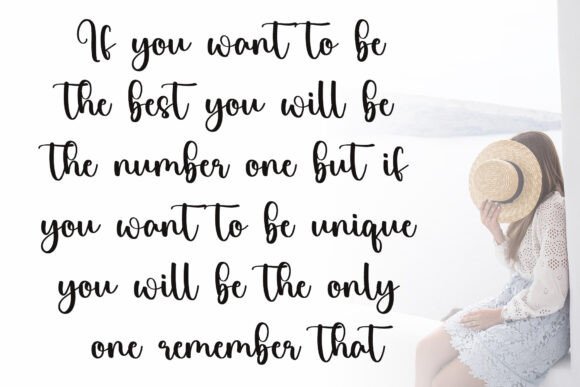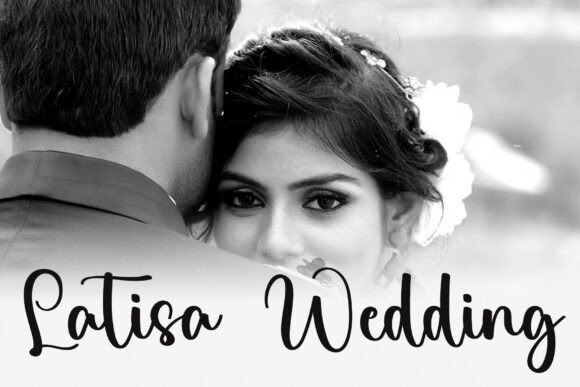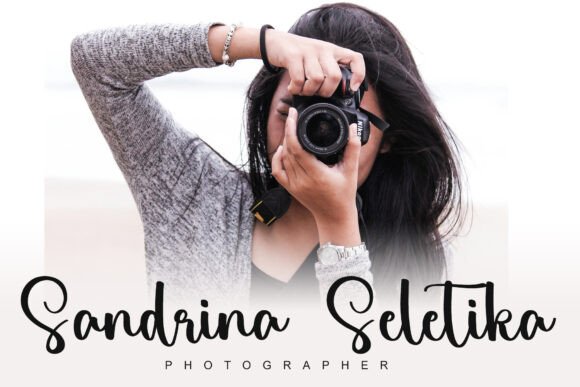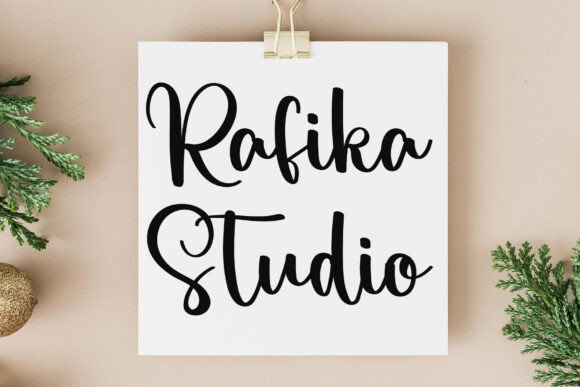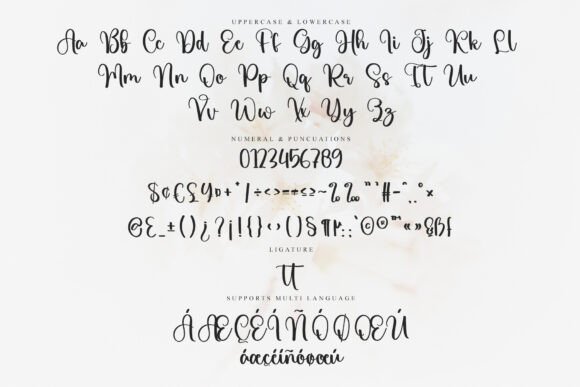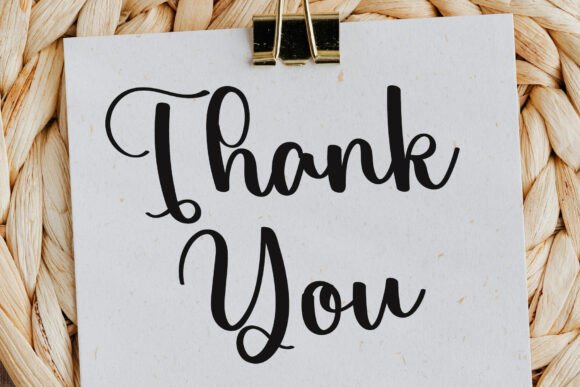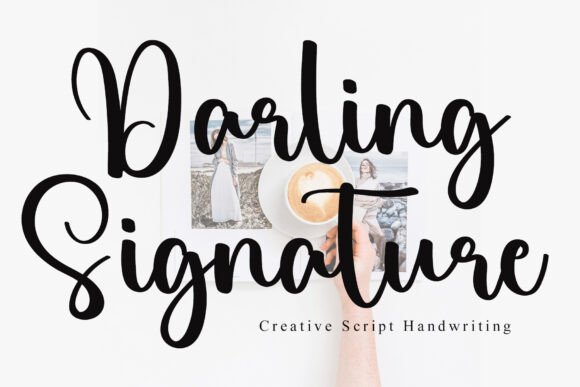
Introducing Darling Signature Font: Elevate Your Designs with Elegance
In the world of design, typography plays a crucial role in conveying the tone and aesthetic of a project. For those seeking to add a touch of sophistication and whimsy to their creations, the Darling Signature Font is an exceptional choice. This magical handwritten font is carefully crafted to bring an air of elegance to various designs, making it perfect for a wide range of applications, from social media graphics to DIY projects.
The Charm of Darling Signature Font
Darling Signature Font is a beautiful, handwritten script that exudes charm and personality. Its unique, flowing letters are designed to capture the essence of calligraphy, providing a personal and intimate feel to any design. Whether you’re working on a logo, a social media post, or a craft project, this font adds a distinctive touch that sets your work apart.
One of the standout features of Darling Signature Font is its versatility. It’s incredibly adaptable, making it suitable for various design needs. Here are a few ways you can use this enchanting font:
- Instagram Graphics: Elevate your Instagram feed with stylish and cohesive graphics. Darling Signature Font is perfect for creating engaging captions, quotes, or announcements that stand out.
- DIY Projects: For crafters and DIY enthusiasts, this font can add a personal touch to handmade cards, journals, and other craft projects. Its calligraphy style brings a sense of warmth and authenticity.
- Branding and Logos: Businesses looking for a unique and elegant logo will find Darling Signature Font to be an excellent choice. It can help create a memorable brand identity that resonates with elegance and sophistication.
- Stationery and Invitations: Create beautiful stationery, invitations, or thank you cards with a personal touch. The font’s elegant style ensures your correspondence stands out.
Why Choose Darling Signature Font?
There are several reasons why designers and crafters should consider Darling Signature Font for their projects:
- Elegance and Sophistication: The font’s design offers an elegant look that can elevate the aesthetic of any project.
- User-Friendly: Darling Signature Font is easy to use, even for those who are new to design or crafting. Its clear and flowing script makes it simple to work with.
- Unique and Personal: In a world of generic fonts, Darling Signature offers a unique and personal touch that can make your designs stand out.
- Magical and Whimsical: The font adds a magical and whimsical touch to designs, making them more engaging and captivating.
Transforming Creative Ideas into Art
Darling Signature Font is more than just a typeface; it’s a tool for transforming your creative ideas into true pieces of art. Its ability to bring a touch of elegance and whimsy to designs makes it an invaluable resource for designers and crafters alike. Whether you’re looking to create something beautiful for personal use or professional projects, this font provides the perfect foundation.
Darling Signature Font is a magical handwritten font that brings a touch of elegance and whimsy to designs. Its versatility, charm, and ease of use make it an excellent choice for designers and crafters looking to elevate their projects. Whether you’re creating graphics for Instagram, working on DIY projects, or developing branding materials, Darling Signature Font is sure to turn your creative ideas into stunning pieces of art. Embrace the elegance and make your designs truly special with Darling Signature Font.